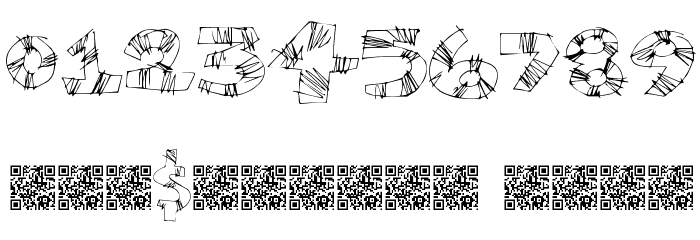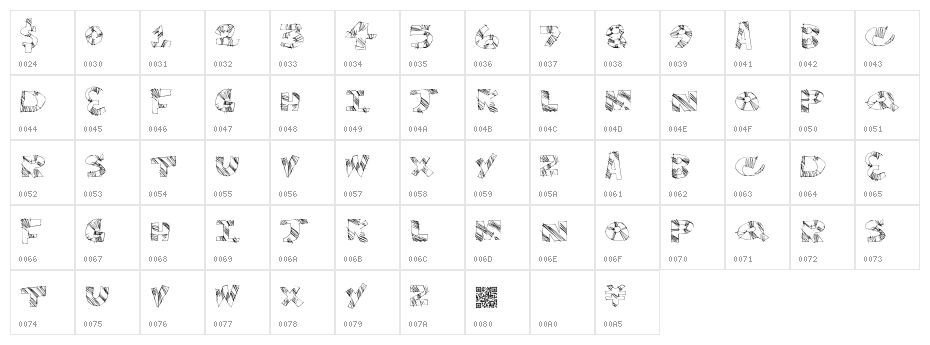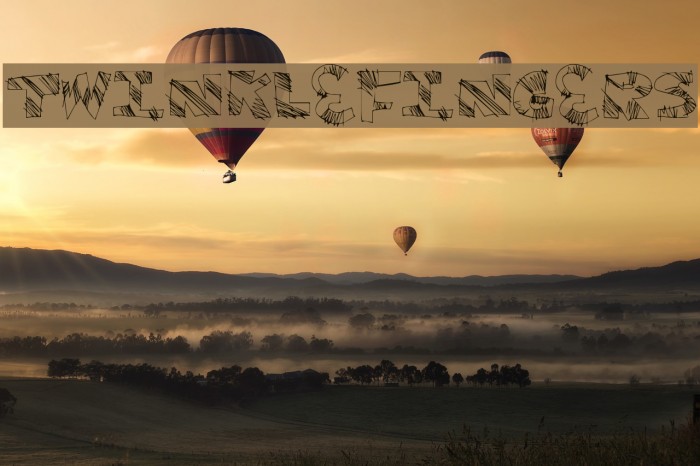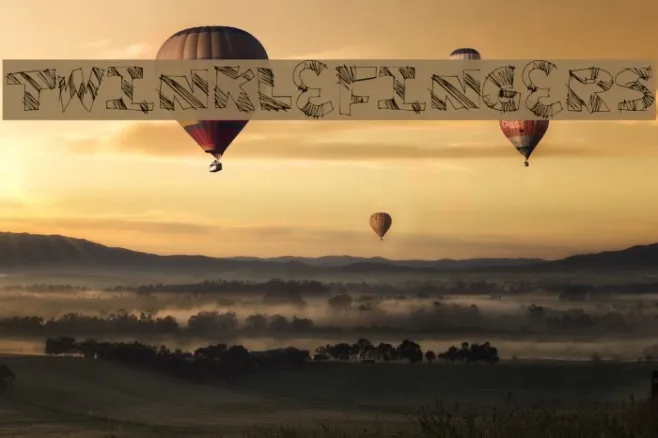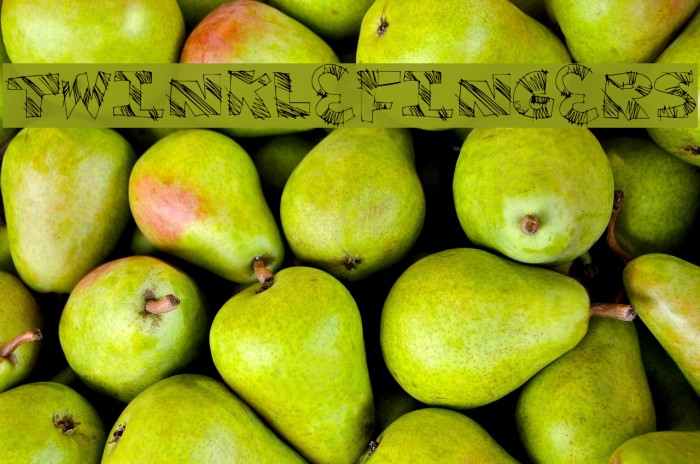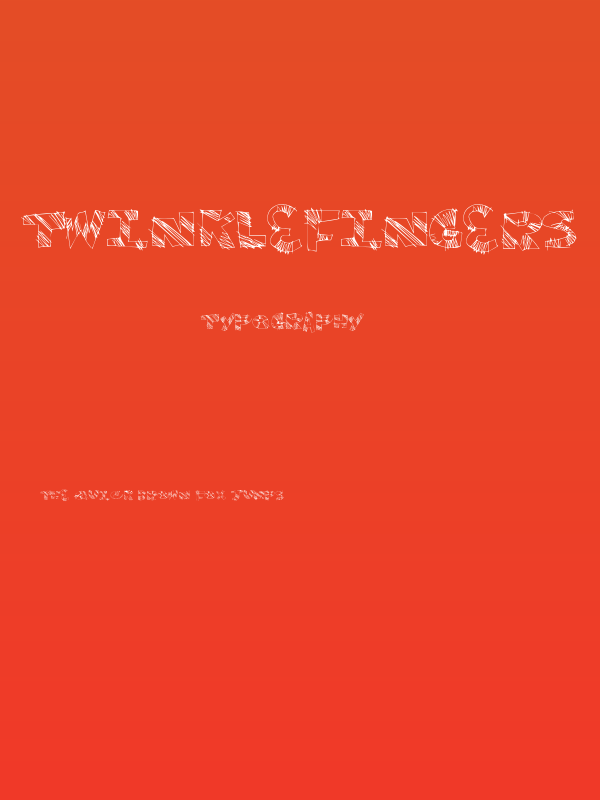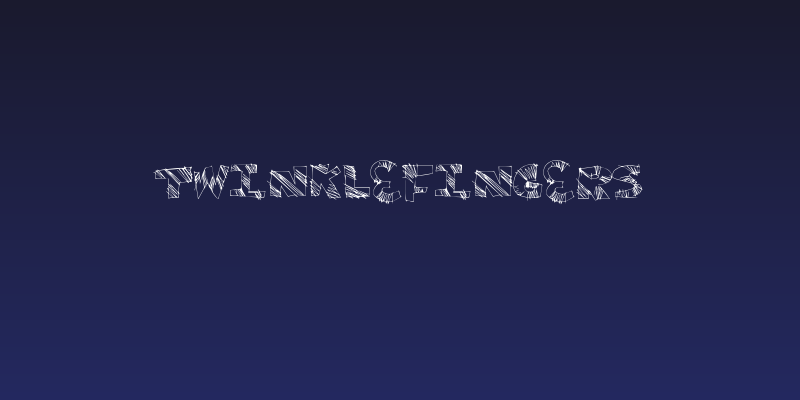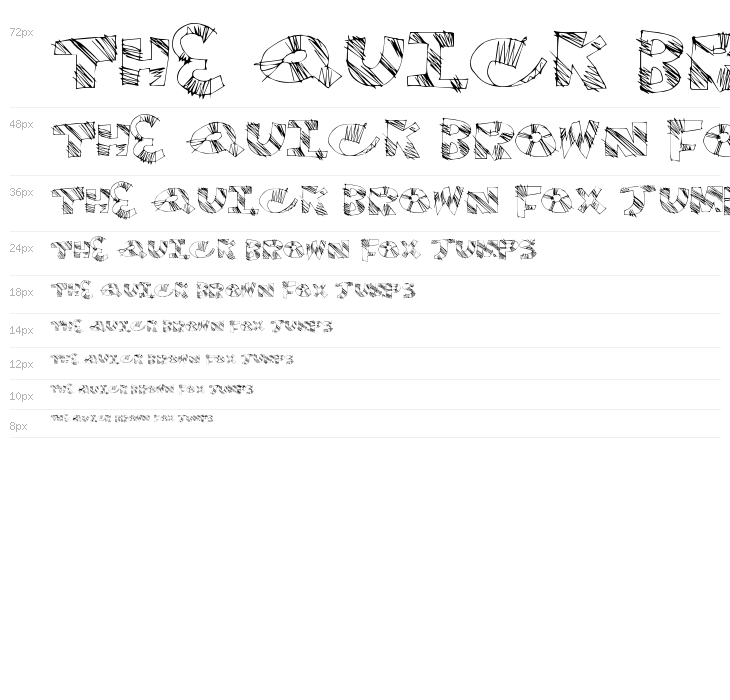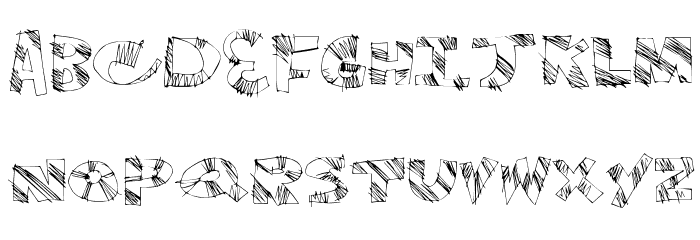
TwinkleFingers Font
TwinkleFingers Description
This font features a playful and dynamic design with each character composed of a series of sketch-like, irregular lines that create a sense of movement and energy. The letters are bold and have a hand-drawn appearance, giving them a unique and artistic flair. The irregularity in the line work adds a whimsical touch, making it ideal for creative projects. The font maintains legibility despite its decorative style, with each character clearly distinguishable. The numbers and special characters follow the same sketchy, energetic style, ensuring consistency throughout the typeface.
| Overall Style | Artistic, Playful |
| Proposed Projects | Ideal for children's book covers, creative posters, playful branding, and artistic invitations. |